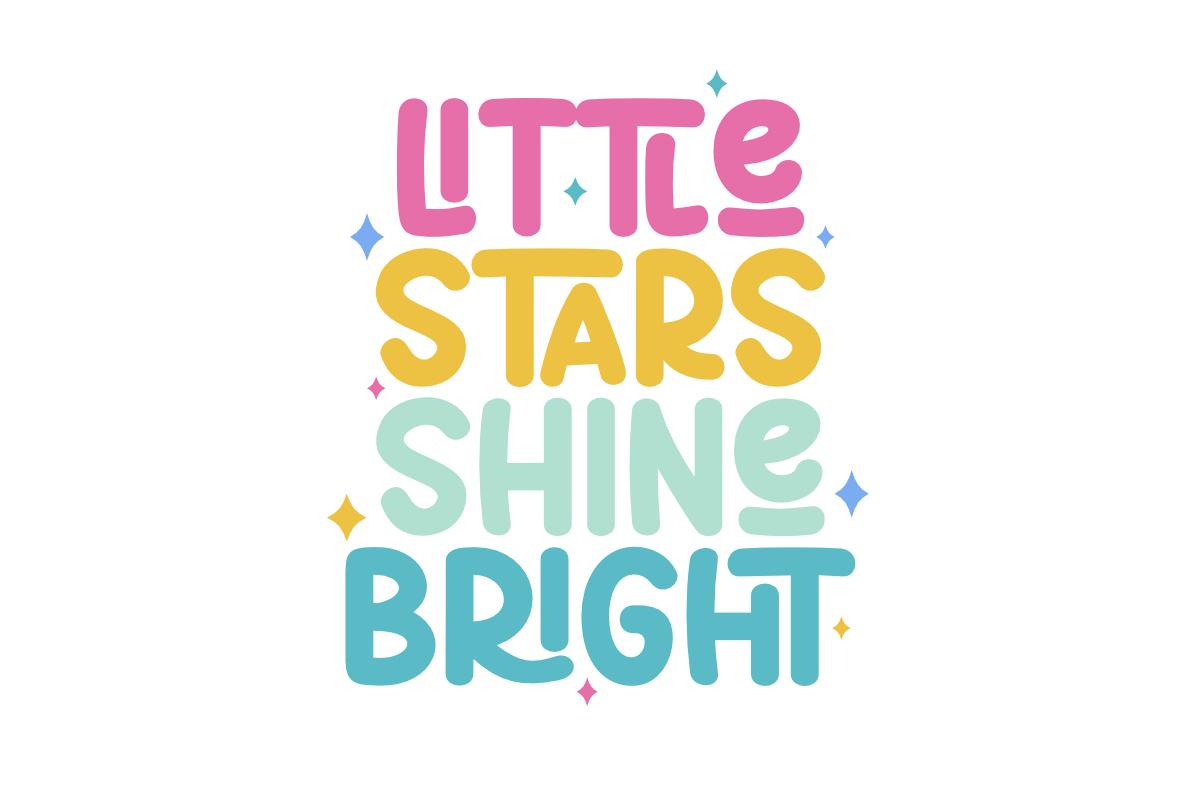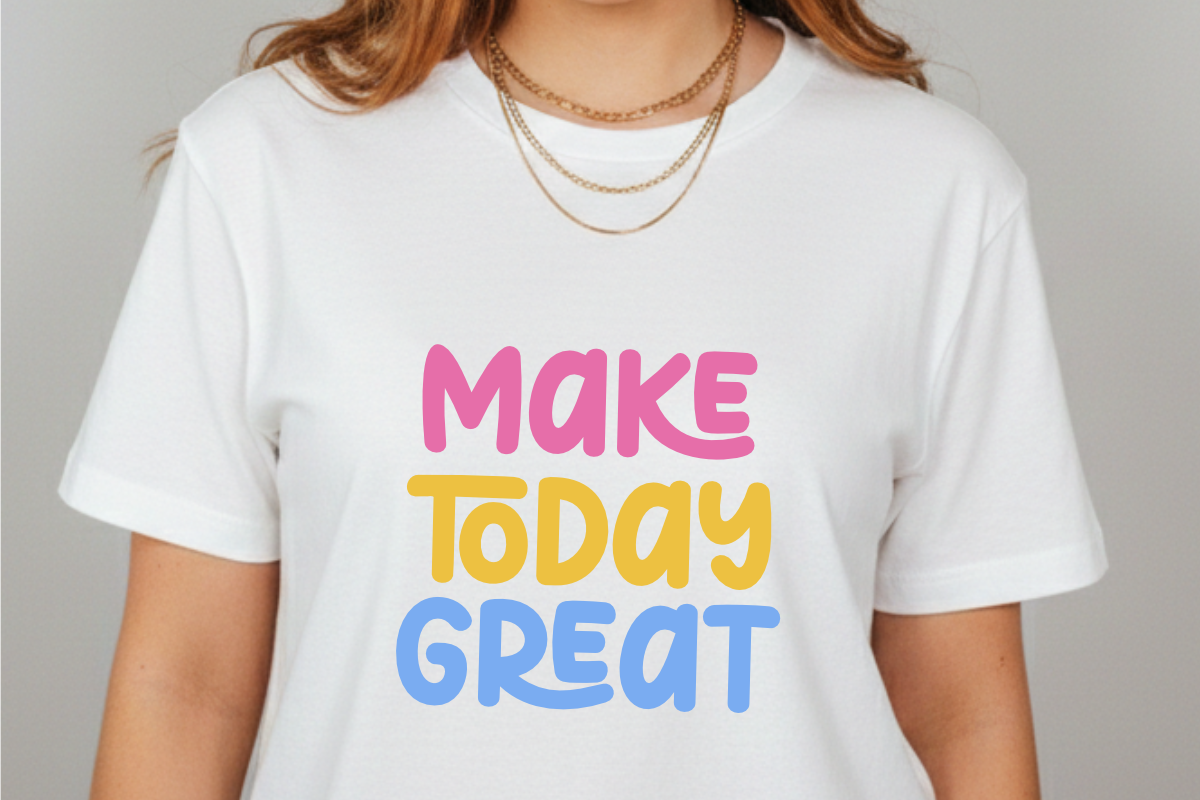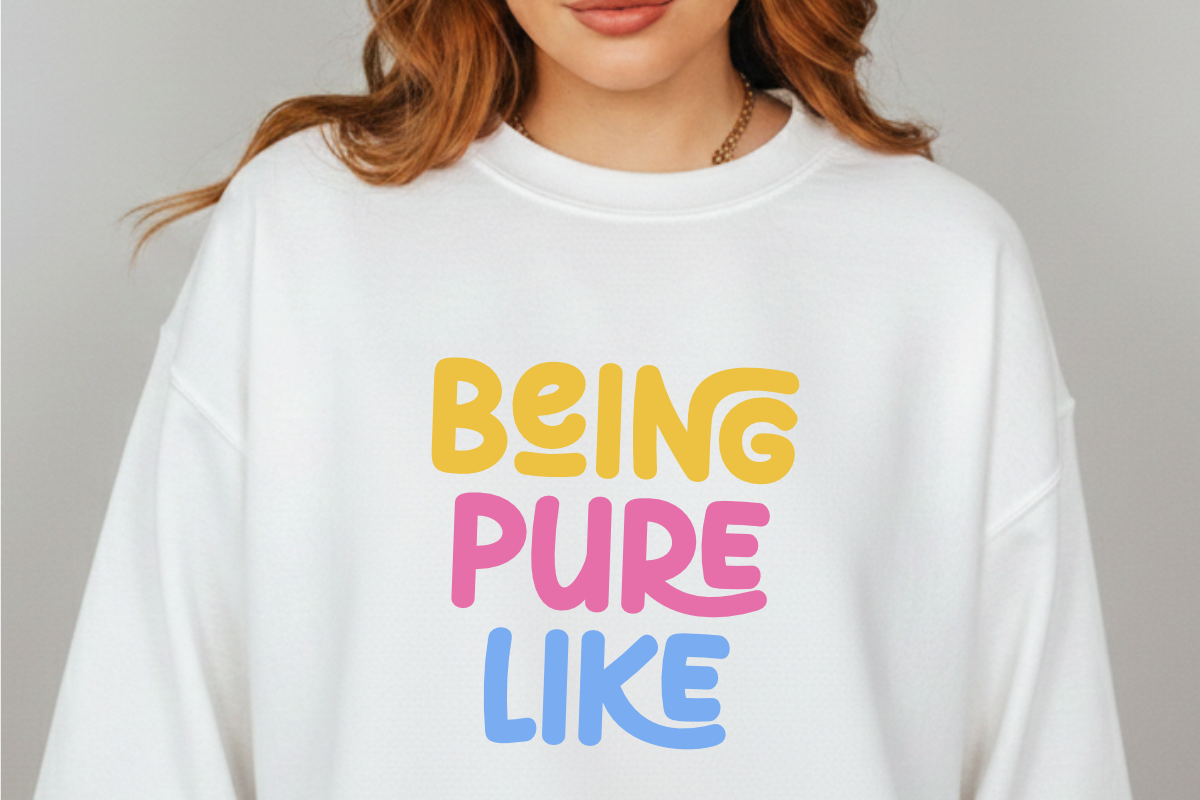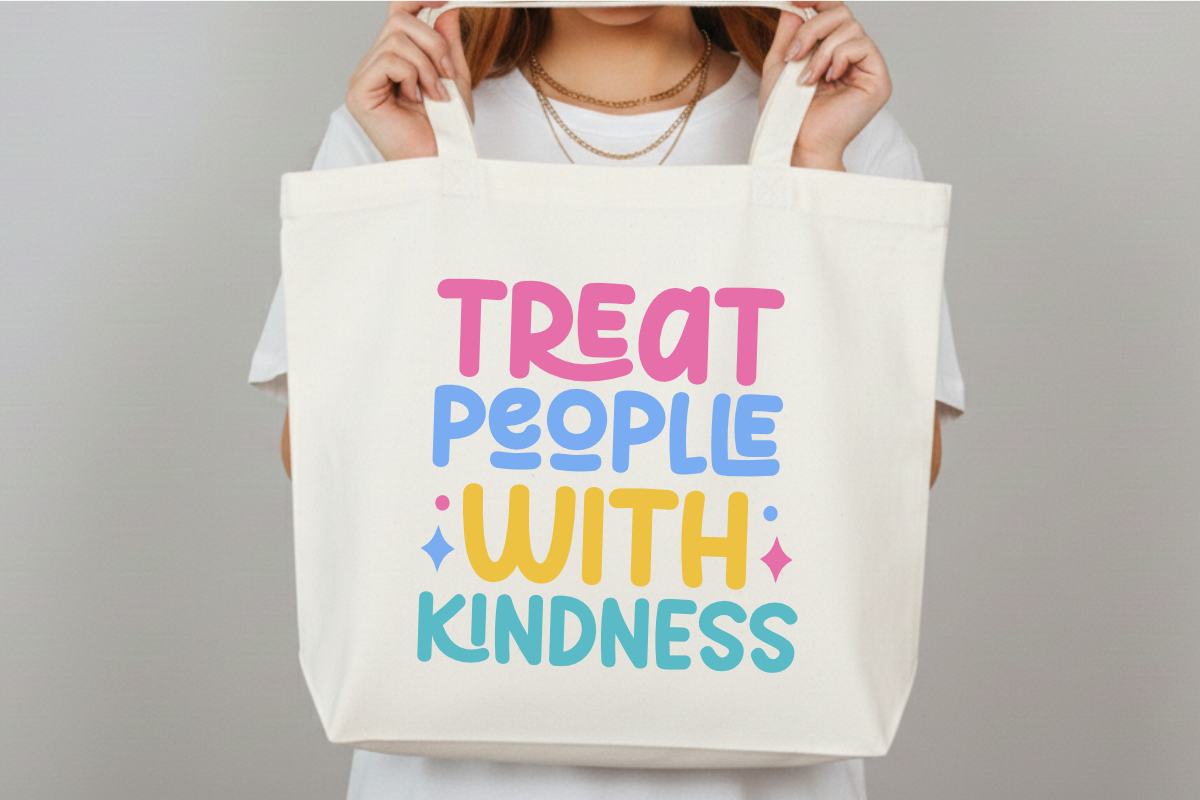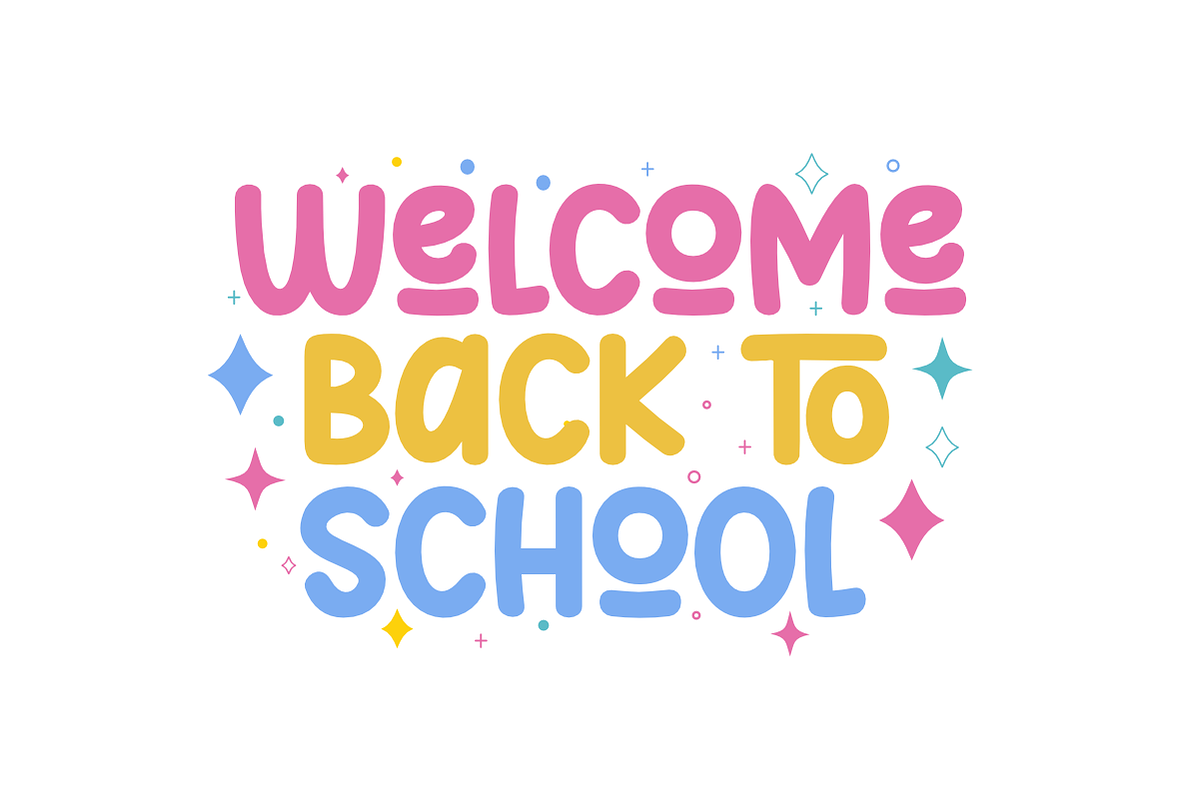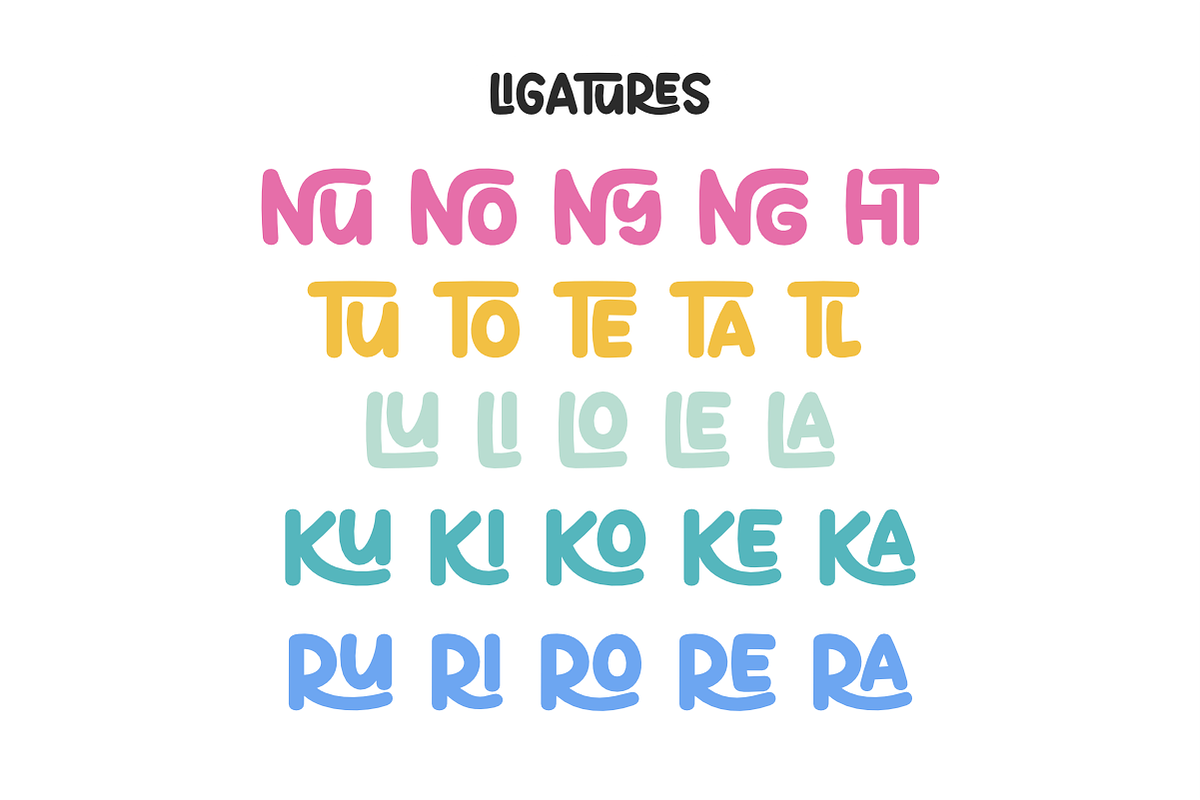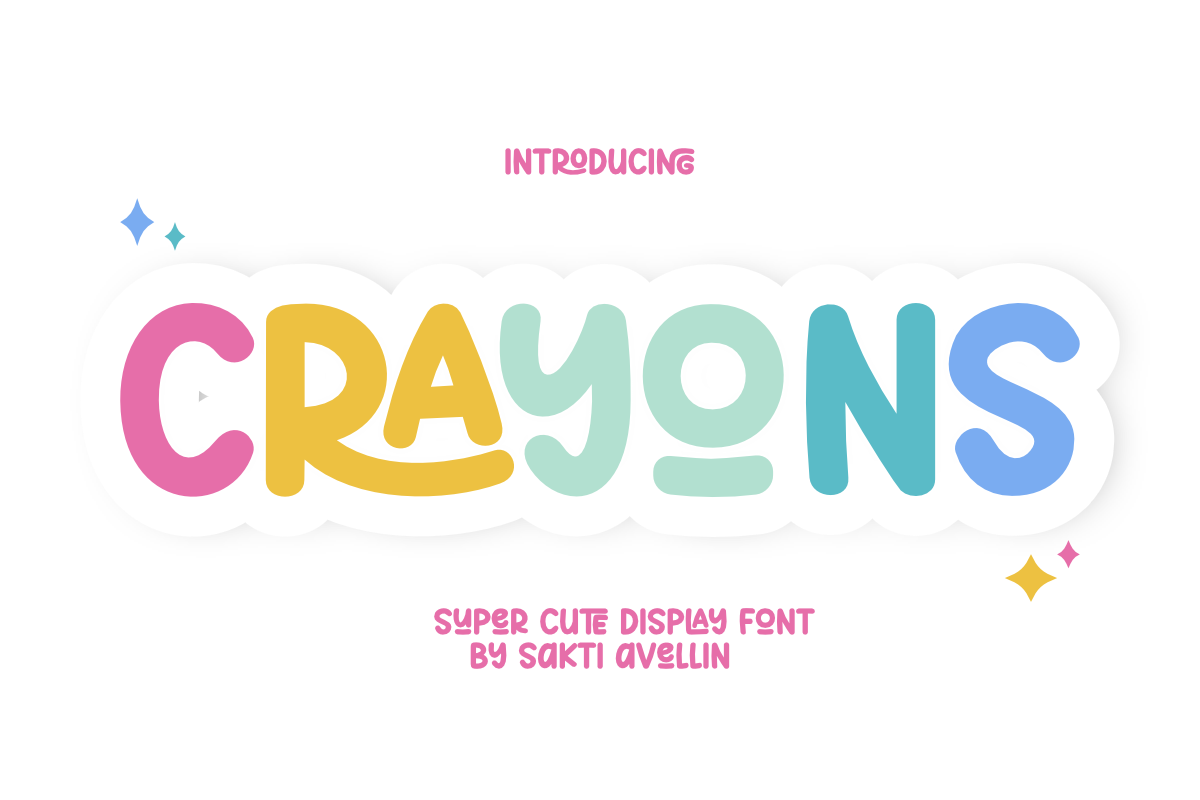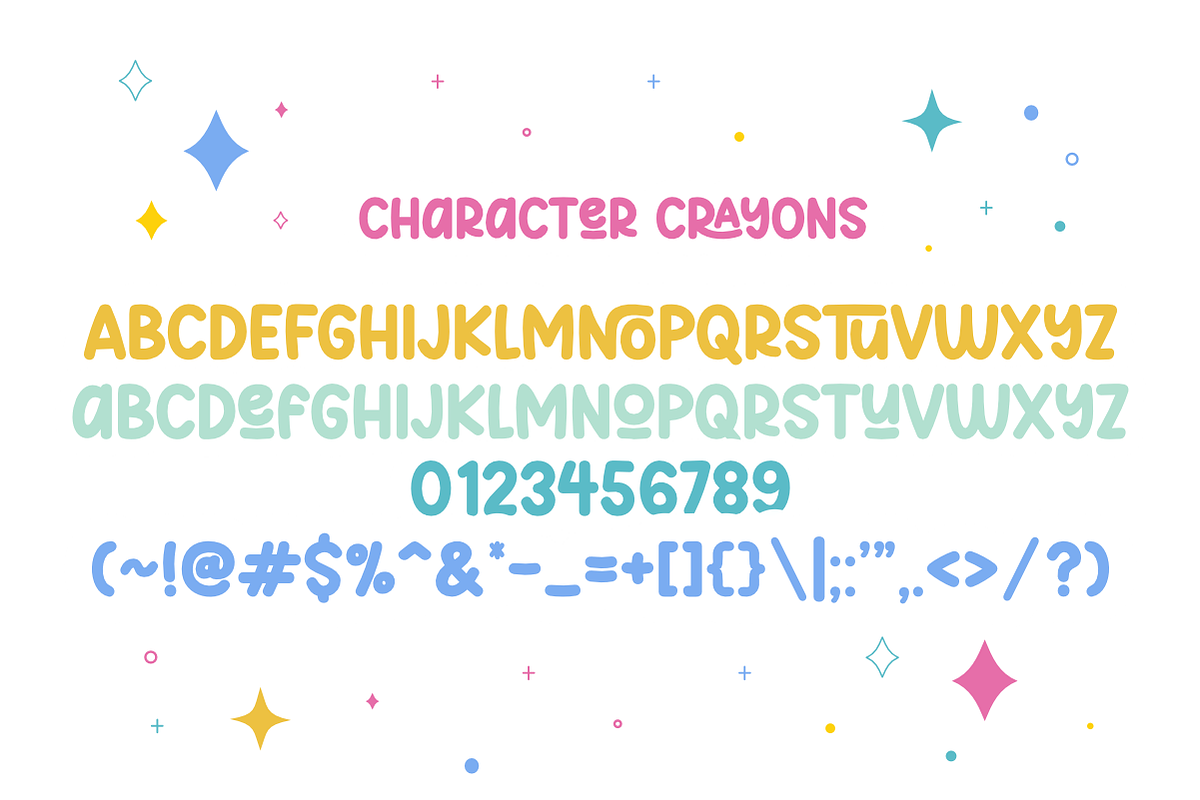
Crayons - Cute Display Font
Crayons is a super cute display font designed to bring a playful and nostalgic charm to your creative projects. This charming typeface features rounded, friendly letterforms that capture the innocent and fun-loving spirit of childhood. Perfect for kids' branding, nursery wall art, colorful stickers, school projects, and cheerful social media graphics. Its bubbly and organic aesthetic ensures your designs feel warm, welcoming, and imaginative. Whether you are creating toy packaging, birthday invitations, or whimsical book covers, Crayons adds a lovely and delightful touch to every design.